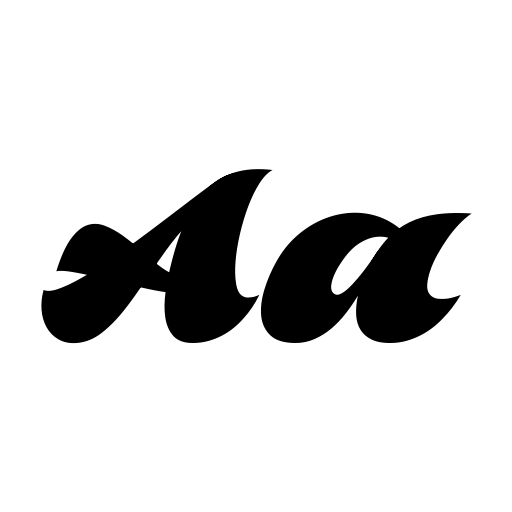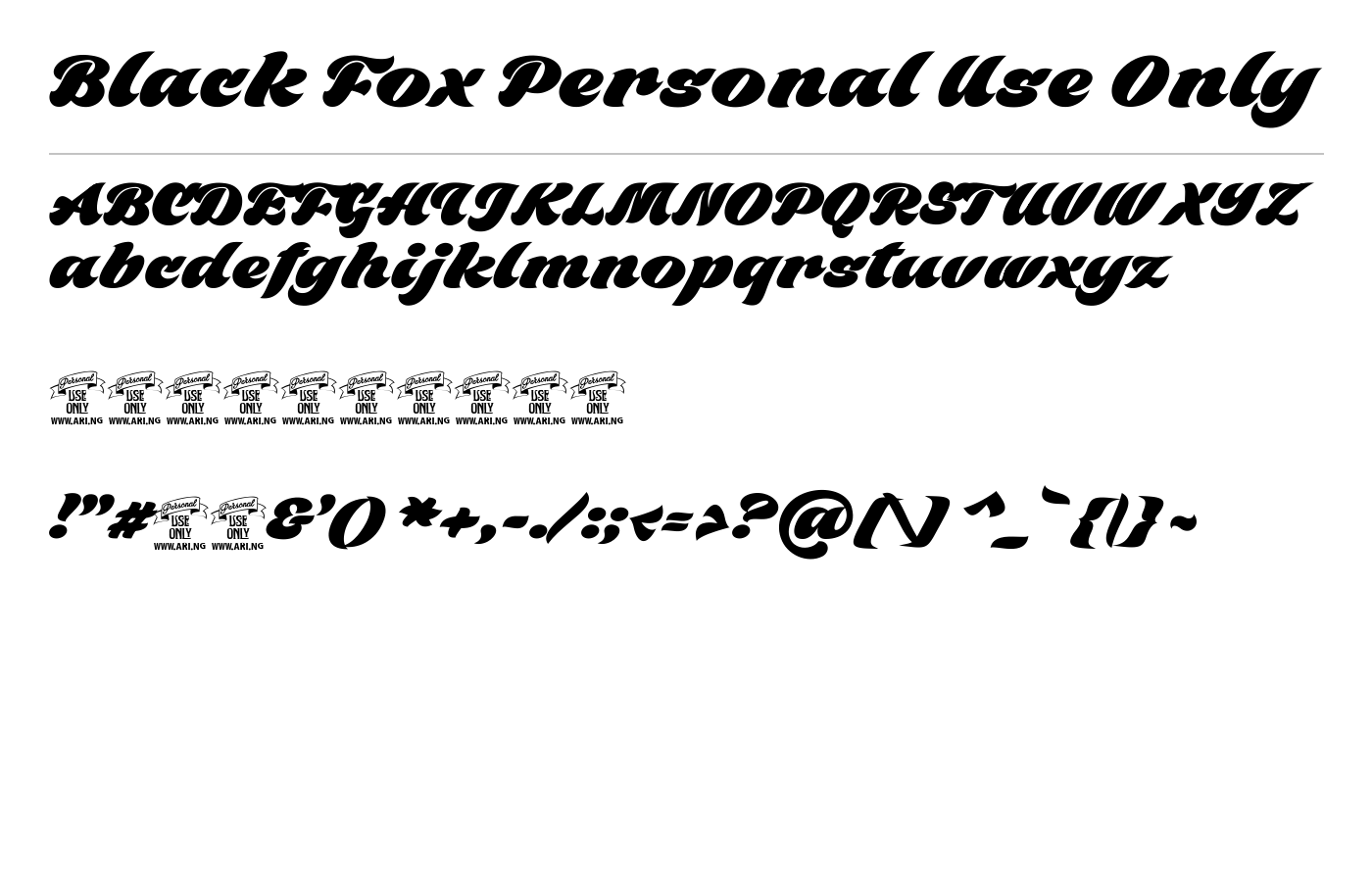
Black Fox Personal Use Only is a bold, script-style font with a playful and energetic vibe. Its thick strokes and smooth curves create a strong, confident appearance, making it ideal for eye-catching headlines, logos, and branding that seek a lively and vintage-inspired feel. This font shines in creative projects where a spirited and dynamic personality is desired.
Black Fox Personal Use Only Font
About Black Fox Personal Use Only Font
| Font family | Black Fox Personal Use Only Font |
| Designer | MÂns Greb‰ck |